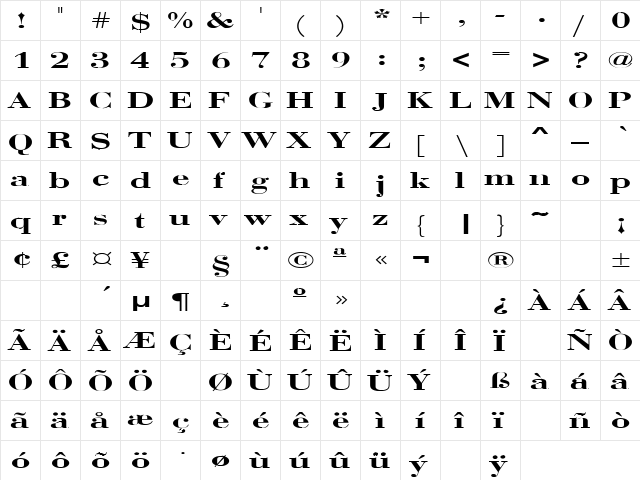
Any Color 3 Regular
Design Context for Any Color 3 Typeface
Any Color 3 takes a measured approach to typography — its balanced proportions and neutral character make it a reliable workhorse for both digital and print work.